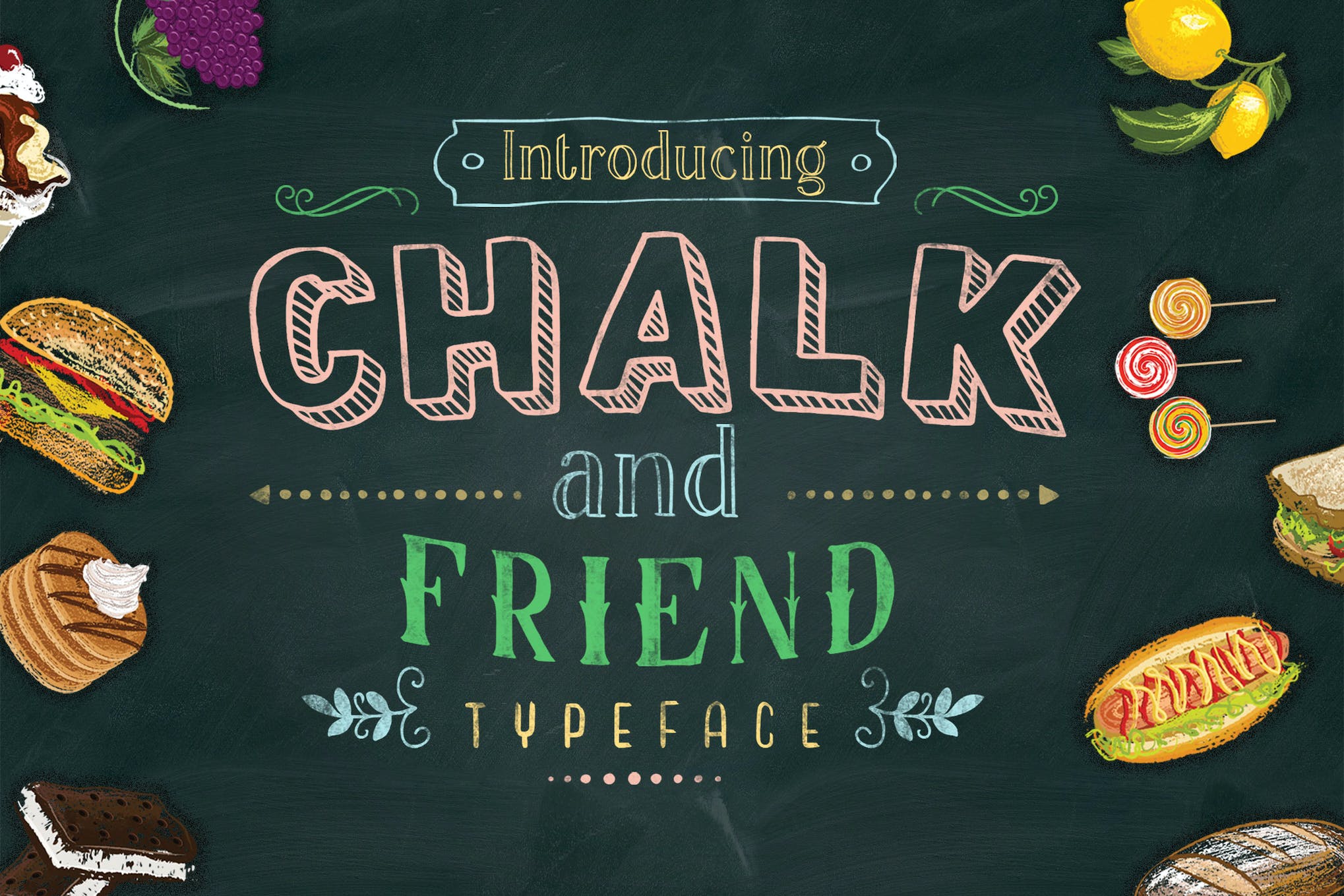
24+ Best Chalkboard Fonts (+ Chalk Typefaces)
Everyone loves a touch of nostalgia, which is exactly what chalkboard fonts bring to the table. Delivering an unmistakable aesthetic associated with traditional classrooms and handwritten teaching notes, these typefaces can transport you and your projects back to simpler times. Perfectly suited for education settings or any project aiming to evoke the tactile and warm feel of chalk dust, these fonts are incredibly versatile.
Our curated post, “24+ Best Chalkboard Fonts (+ Chalk Typefaces)” has something for everyone. Whether you’re designing classroom-centered eye-catching visuals or planning a vintage-themed event, these fonts can amp up your creativity. And the best part? We’ve mixed both paid and free options into our list so you can choose as per your project requirements.
Peruse this immersive collection of chalkboard fonts. Imbued with nostalgia yet exceedingly versatile, these chalk style typefaces may just become the game-changer in your design toolkit. So why wait? Dive right in and find the perfect font to elevate your design aesthetics.
Chalk Board Handmade Font
Chalk Board Handmade Font, a textured brush font, is inspired by chalk providing a real and earnest touch to any design. It offers features such as TTF/OTF/WOFF formats, ligatures, alternates, uppercase and lowercase letters, and numbering and punctuations. Compatible with PC or Mac, it supports Adobe Illustrator, Adobe Photoshop, Adobe InDesign, and Microsoft Word, making installation simple.
Together Chalk Style
The Together Chalk Style creative asset is a playful, informal chalk font, ideal for child-friendly themes such as playgrounds or school. Its versatility makes it perfect for various projects ranging from educational themes, crafting, digital designing, to pastry presentations and greeting card creations. Coming with uppercase, lowercase, numeral features, symbols, punctuation, alternate ligatures, and multilingual support in OTF, TTF, WOFF, and WOFF2 formats.
Chalk Dream Typeface
The Chalk Dream Typeface is an enjoyable display font that boasts a realistic chalk texture, lending an organic feel to your work. An all-caps font supporting numerous languages, it’s a versatile choice for various design ventures including crafting, advertising, clothing, and branding. It comes in TTF, OTF and WOFF formats, making it suitable for a wide variety of applications.
Better Chalk Script
Better Chalk Script is a charming and versatile font, perfect for a range of applications from educational projects to food labels, logos, or advertising. The package includes Better Chalk in both OTF and TTF formats and features standard ligatures and multilingual support, accommodating a broad spectrum of creative needs. Its approachable design adds a personable touch to any project.
Classic Chalk Font
The Classic Chalk Font is a versatile, handmade chalk font perfect for various creative projects. Whether you’re preparing for a party, designing print materials, concocting standout packaging or creating bold t-shirts, this font adds a sprinkle of fun and style. It’s compatible with Adobe Suite, Microsoft Office, KeyNote, and Pages and supports multiple languages as well as stylistic and ligature options. With an emphasis on creativity and individuality, this font promises to give your brand or project a memorable edge.
Chalk Talk Handwritten
Chalk Talk Handwritten is a versatile creative asset that beautifully combines handwritten elegance with chalkboard nostalgia. Its unique style makes it perfect for various applications such as restaurant menus, greeting cards, school projects, and more. With simple installation, compatibility with both PC & Mac and full accessibility in design software including Adobe Illustrator and Photoshop, Chalk Talk Handwritten helps enhance any project, giving it a timeless and charming touch.
Chalk Zone Natural Font
Chalk Zone Natural Font is a unique font style inspired by the rustic charm of chalk writing on a school blackboard. With its rugged, rough-edged appearance, it adds creative flair and authentic appeal to various designs. Whether you’re looking to enhance the look of t-shirts, menus, quote posters, or logos, this versatile font delivers a tangible chalk touch. It’s easily installable and compatible with design software like Adobe Illustrator and Corel Draw.
Chalk Talks Casual
Chalk Talks Casual is a versatile brushed handwritten font that can add a unique touch to your project. With features like OTF, TTF, WOFF, web fonts, ligatures, swash, alternates, and multilingual support, it’s an invaluable addition to any font library. From letters to numbers and punctuation, it elevates and enhances your creative scope.
Chalk and Friend Duo
Chalk and Friend Typeface is a versatile font set, designed with the expressive style of blackboard script. Comprising four unique font families, it gives you the freedom to personalize your work with any ornamentation. Ideal for chalkboard menu designs, book menus, sign boards, etc., it’s user-friendly and multi-lingual. This asset notably includes Stylistic Alternates and the complete A-Z character set, numerals, and punctuation.
Vanderchalk Typeface
The Vanderchalk Typeface is a handcrafted display font, providing an excellent choice for a variety of projects, including café menuboards, wedding photo booths, t-shirts, labels, and posters. It comes with a bonus vector feature that lets you creatively combine pairs of ornaments to fit your designs. The package includes Vanderchalk in otf and ttf formats, and bonus vectors in Ai Cs3 and EPS Cs3.